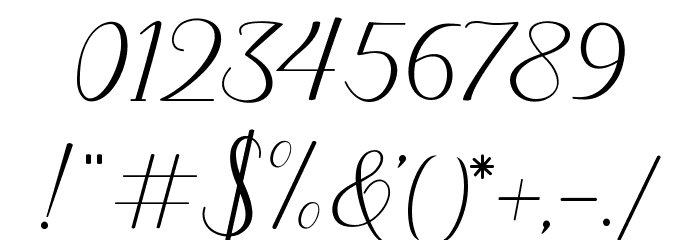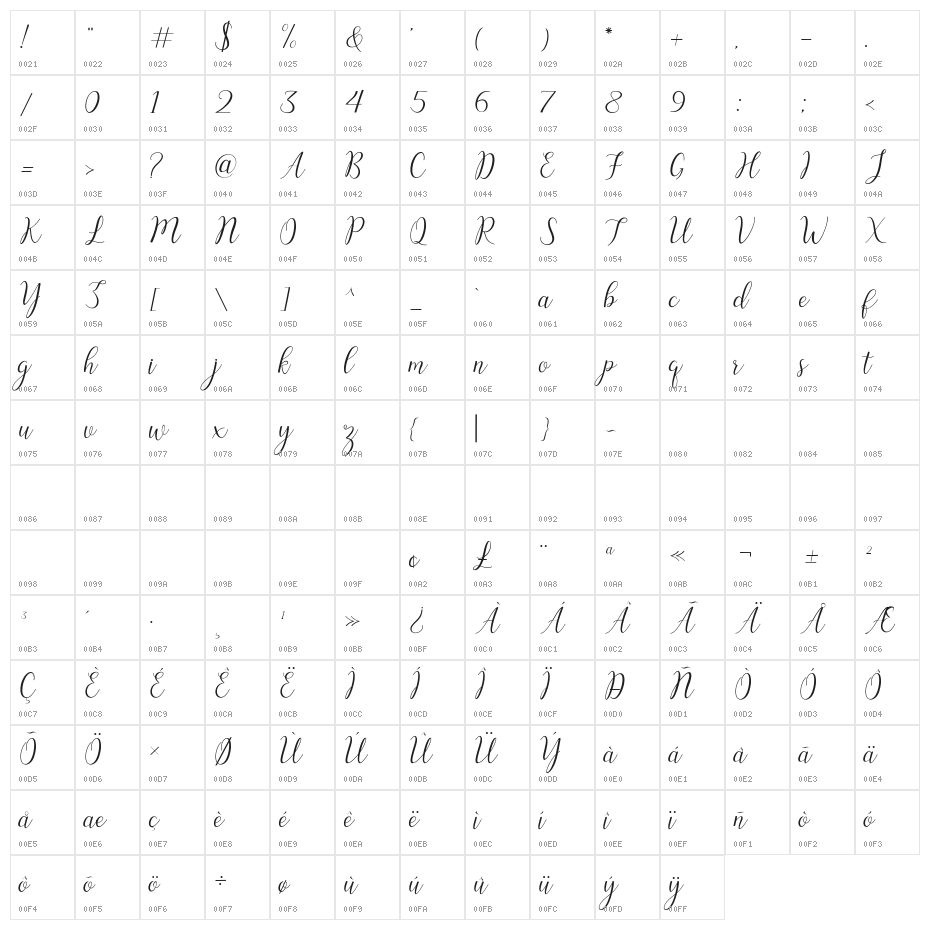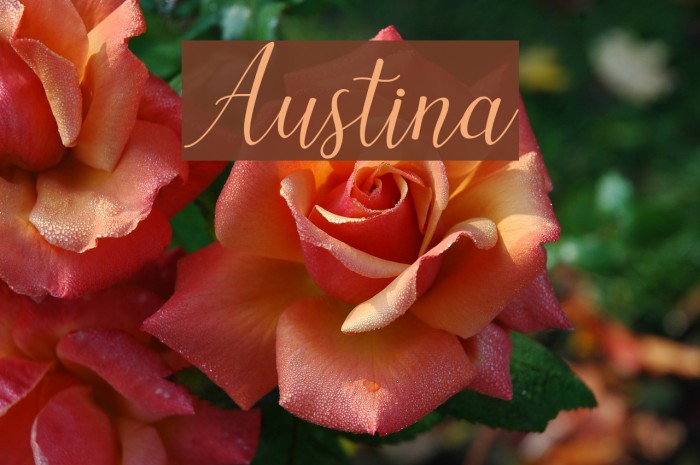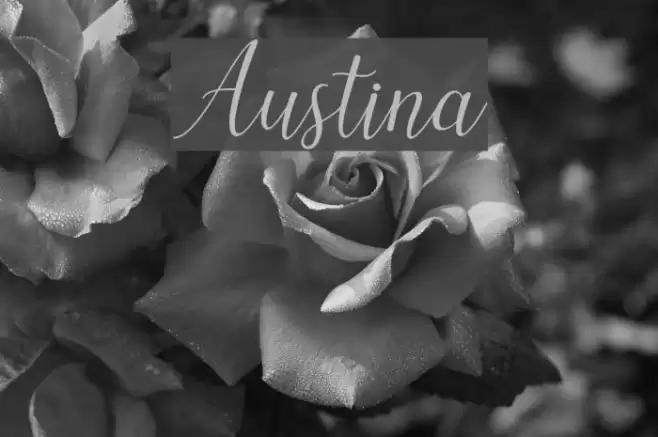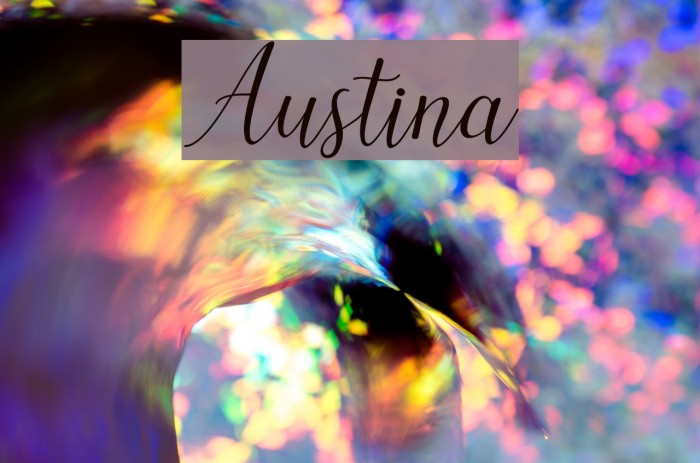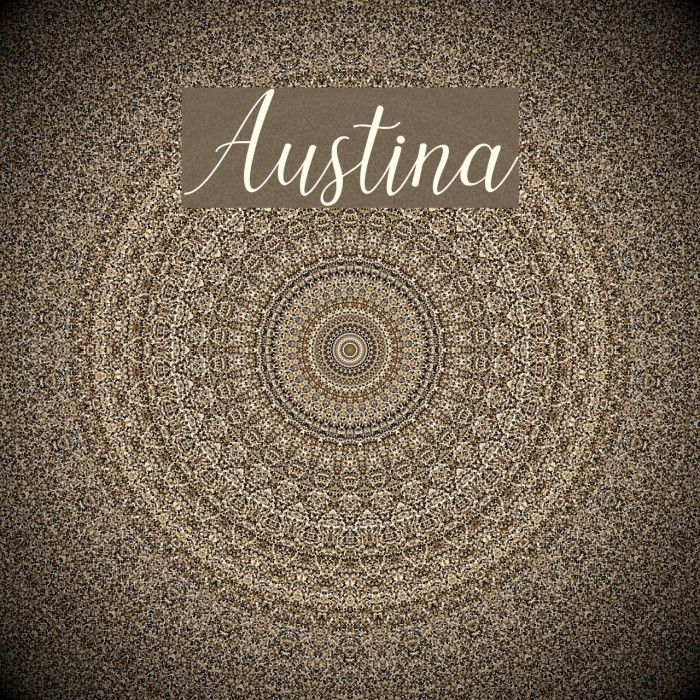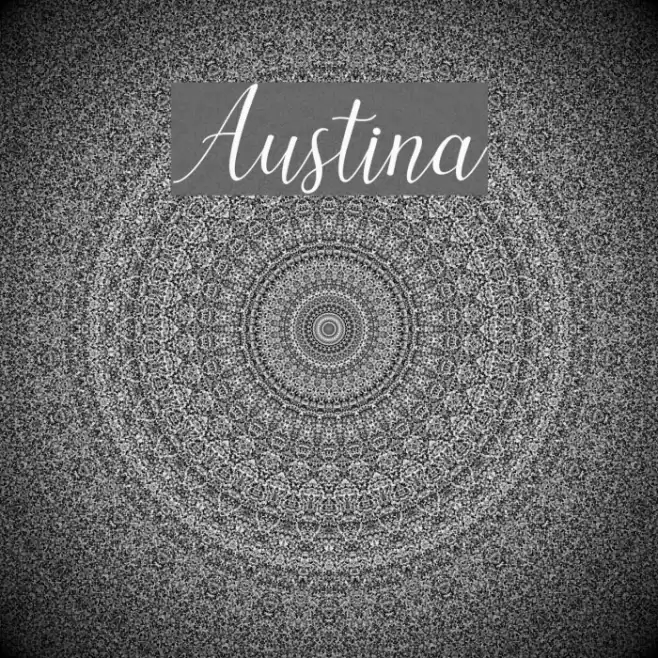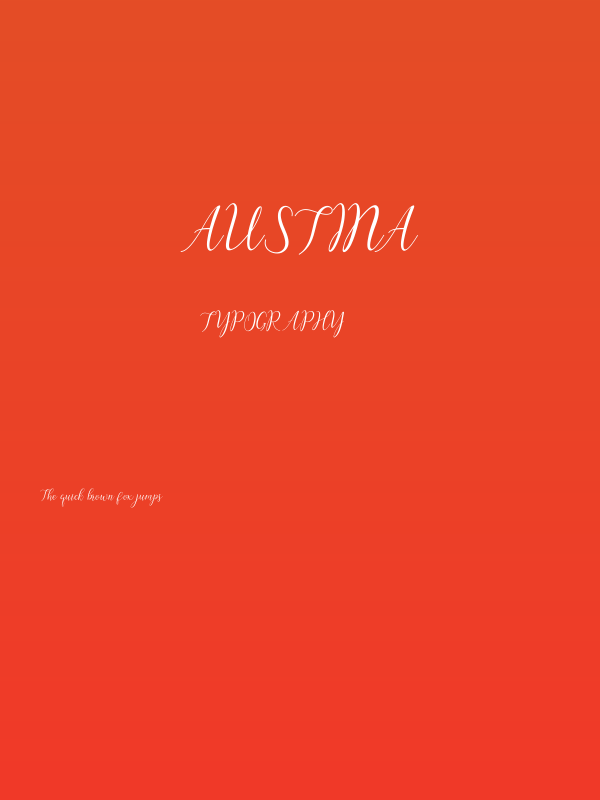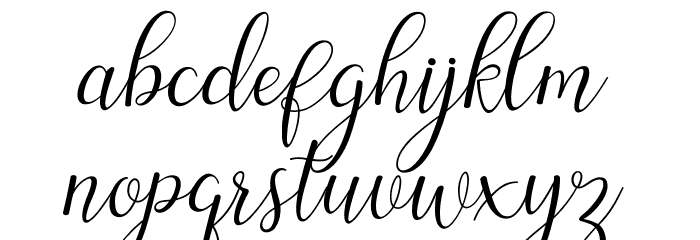
Austina Font
Austina Description
This elegant script font features a flowing, cursive style with a sophisticated flair. The uppercase letters are characterized by sweeping curves and delicate loops, while the lowercase letters maintain a consistent, graceful rhythm. The numerals are stylish and complement the overall aesthetic, adding a touch of refinement. Special characters are designed with the same attention to detail, ensuring a cohesive look across all glyphs. The font's high contrast between thick and thin strokes enhances its readability and adds a dynamic quality to the text. Its overall appearance is both classic and modern, making it versatile for various design applications.
| Overall Style | Elegant, Modern |
| Proposed Projects | Ideal for wedding invitations, elegant branding, greeting cards, and upscale packaging. |